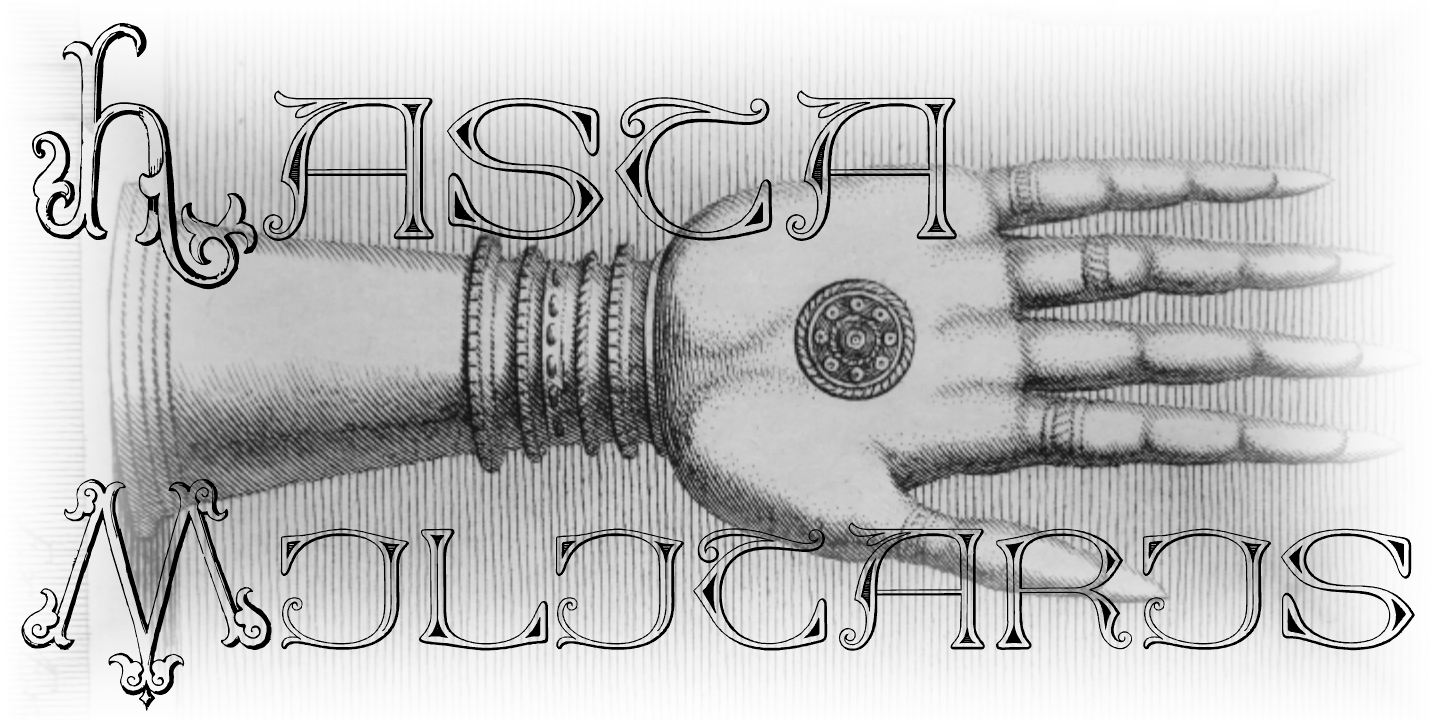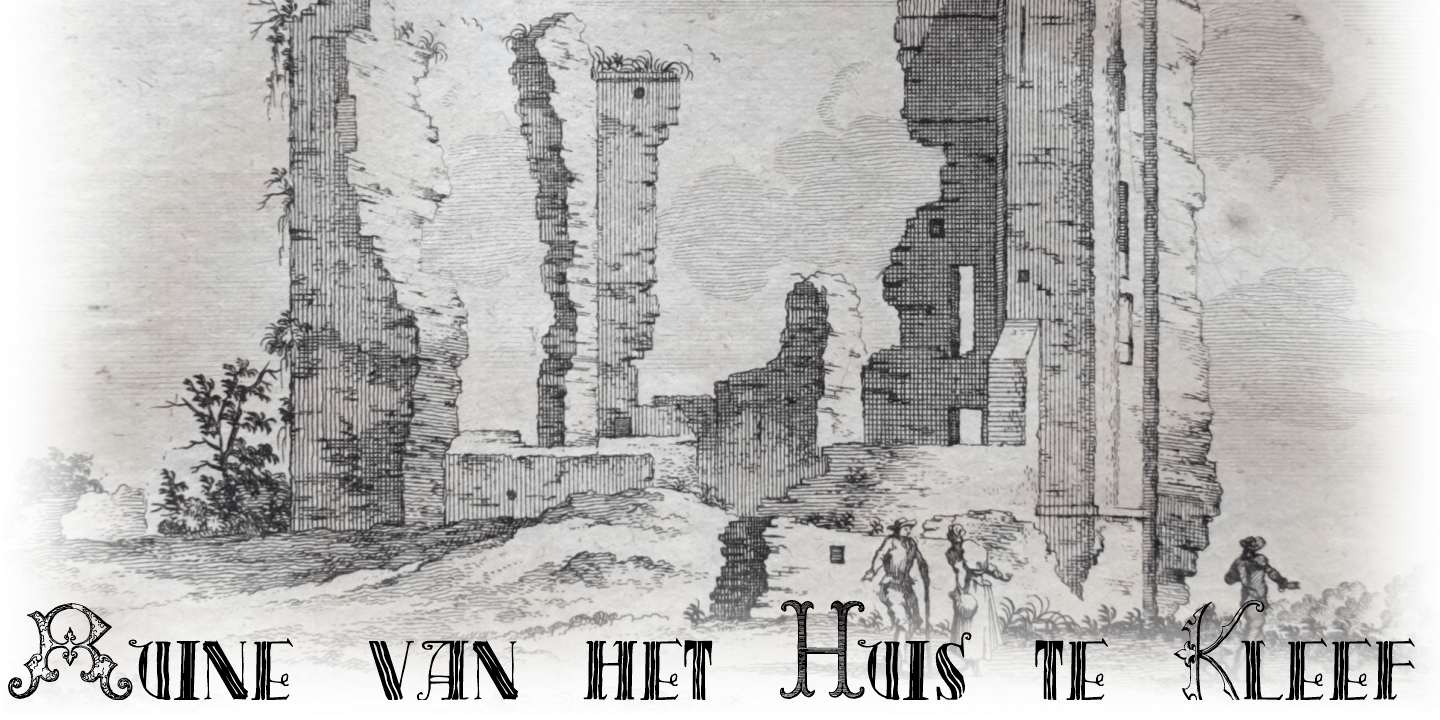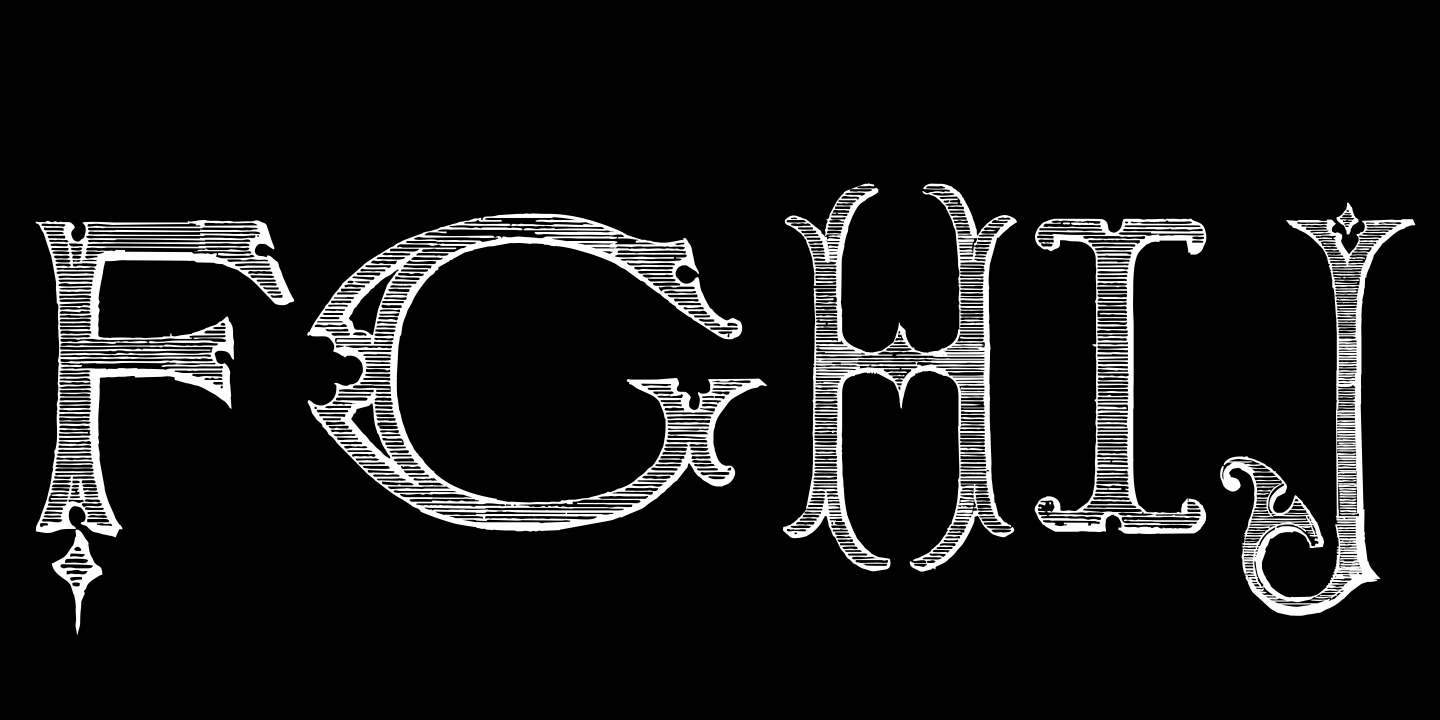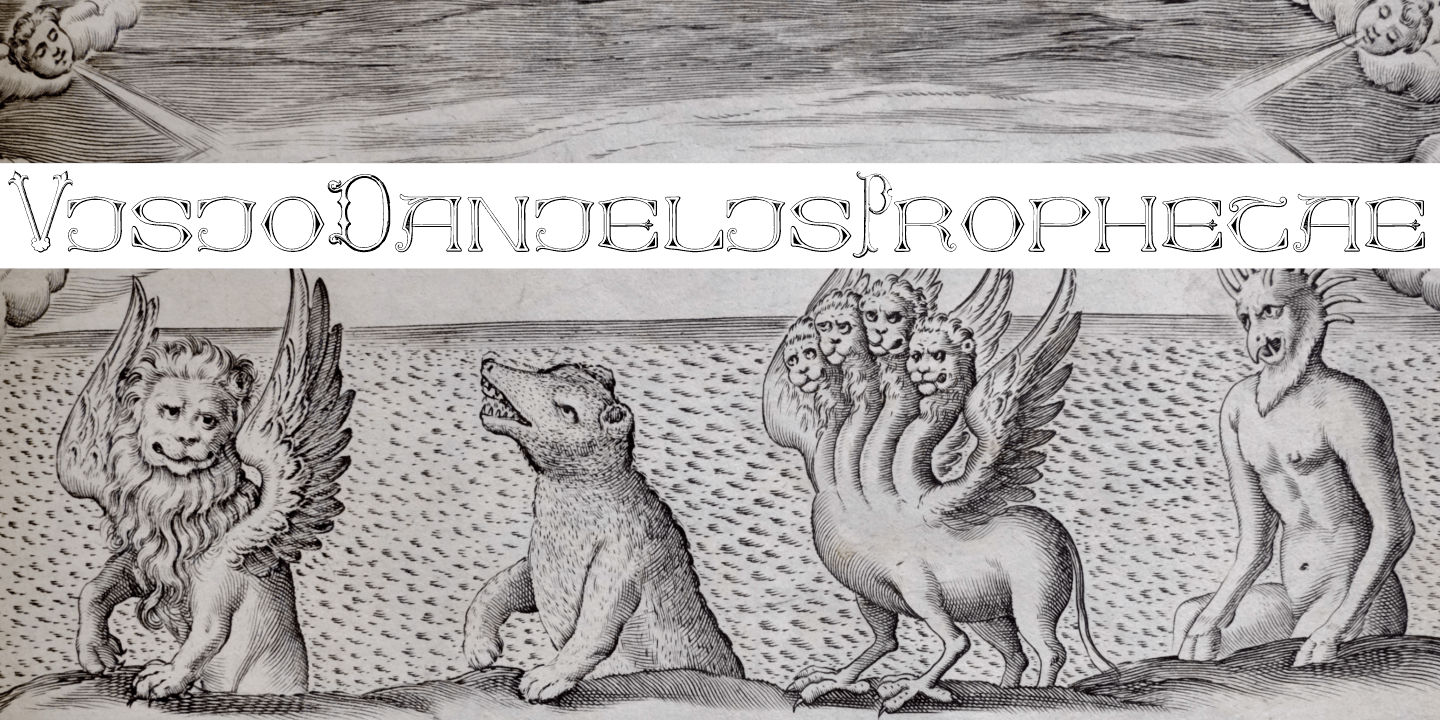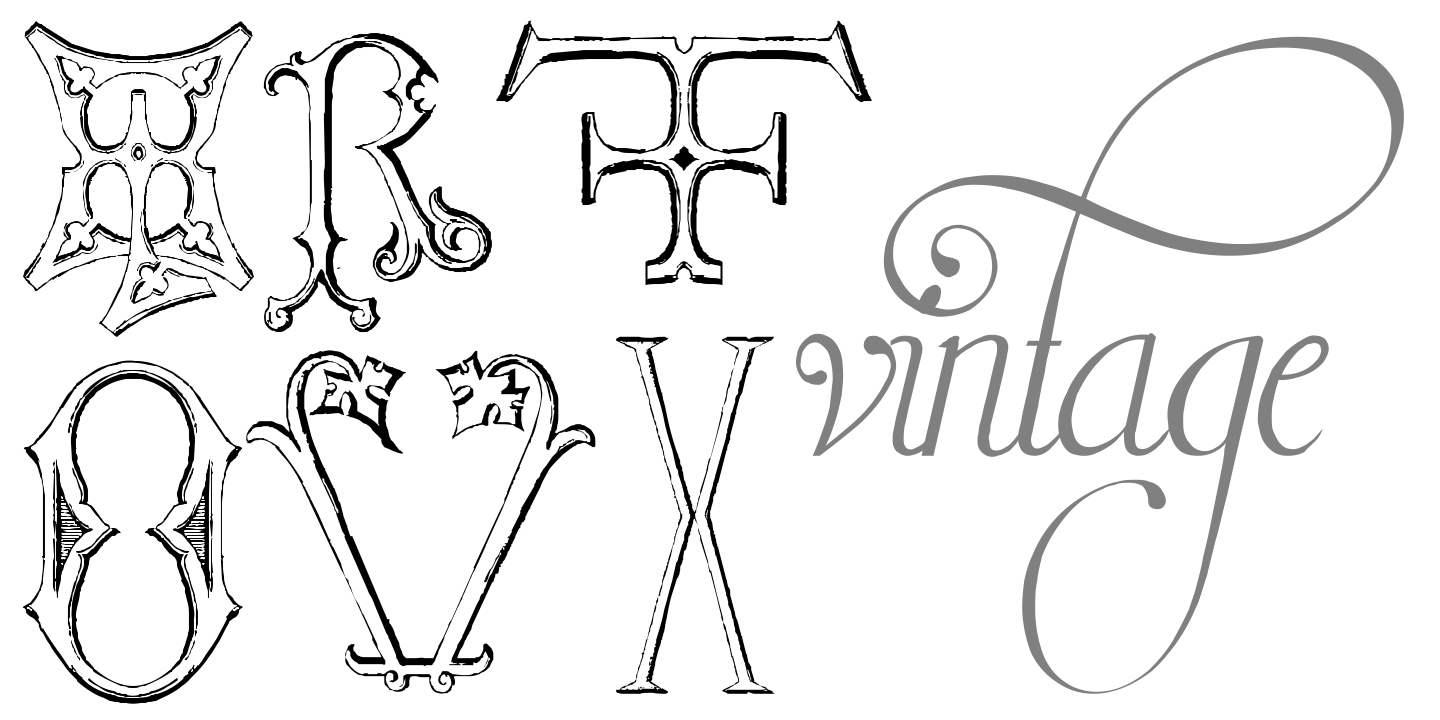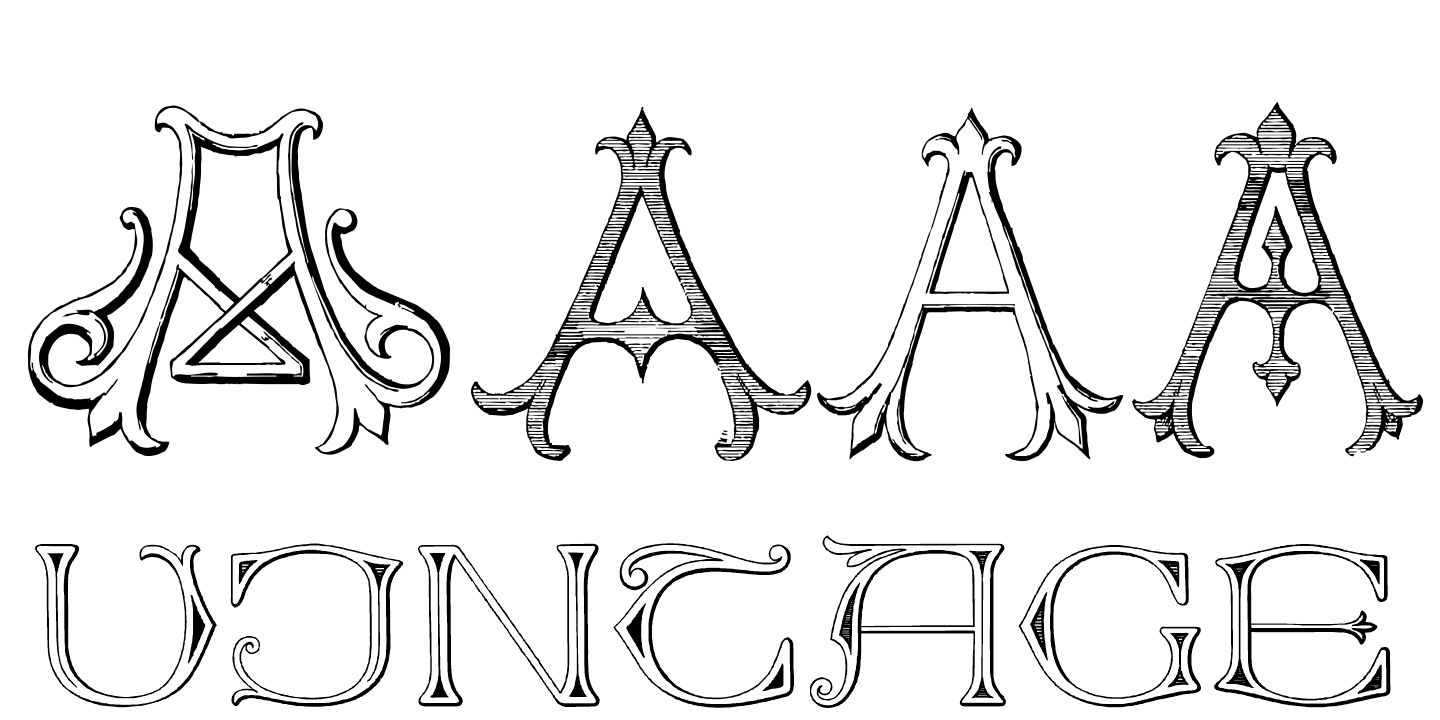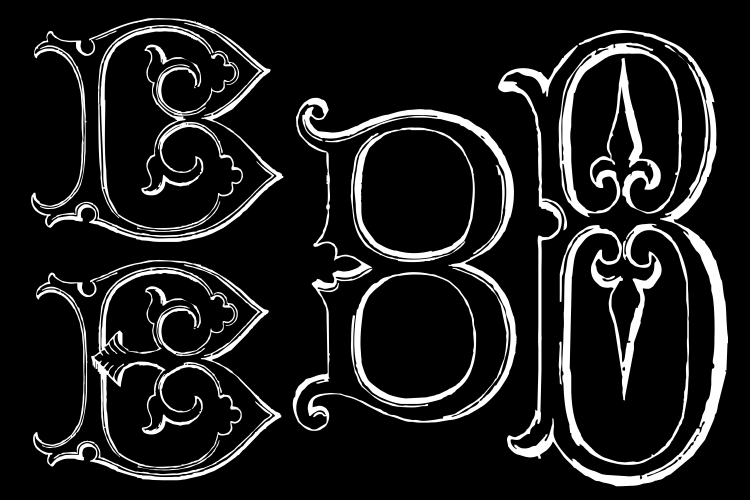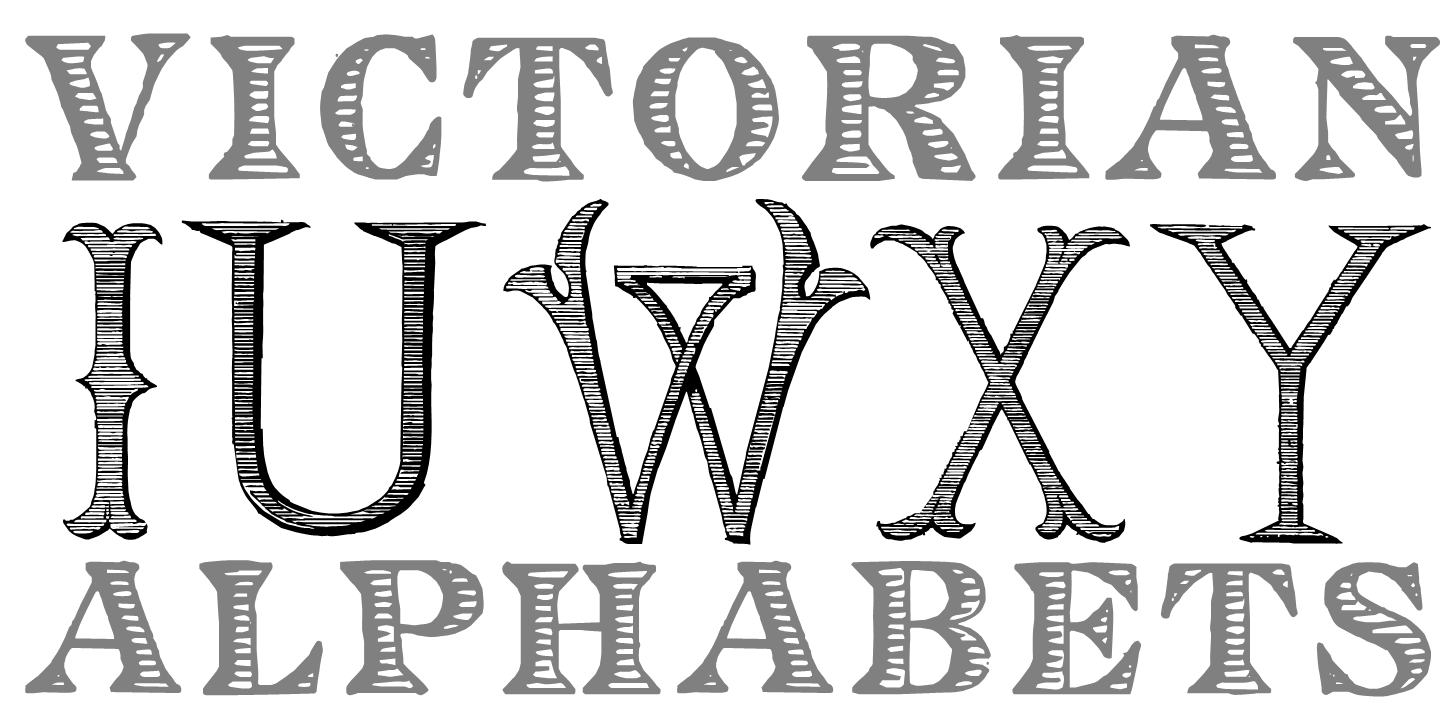
Victorian Alphabets
About Victorian Alphabets
Victorian Alphabets is a incoming family of complete victorian style alphabets, researched and developed upon a comprehensive number of vintage books, magazines and catalogues from XIX century. The "Victorian Alphabets A" font has just A'…